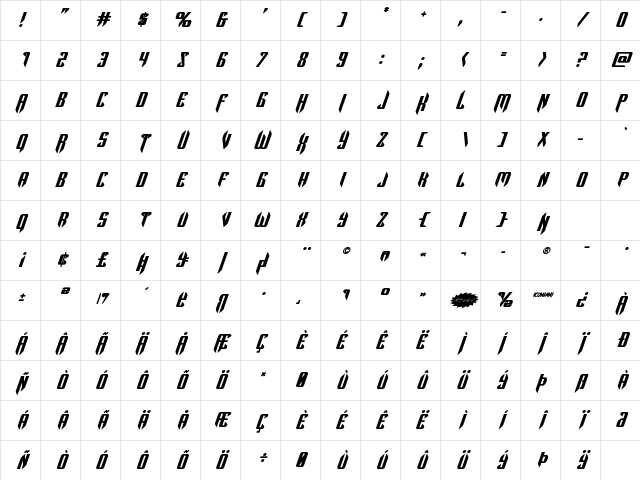
Complete The Immortal Bold Italic glyph index. Displaying only characters natively supported by The Immortal Bold Italic font.
The Immortal Bold Italic is a composed and adaptable typeface that performs quietly and consistently across a wide range of design contexts. The slanted form adds forward momentum and visual energy. Its bold stroke weight gives it real presence on the page.